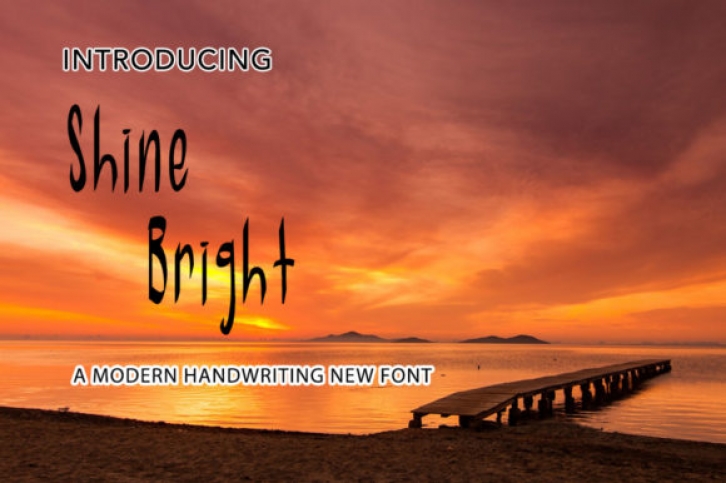
Shine Bright is a cute and modern handwritten font.
Whether you’re looking for fonts for Instagram or calligraphy scripts for DIY projects, this font will complement each of your design ideas.